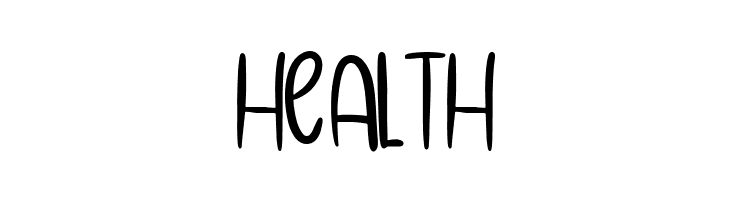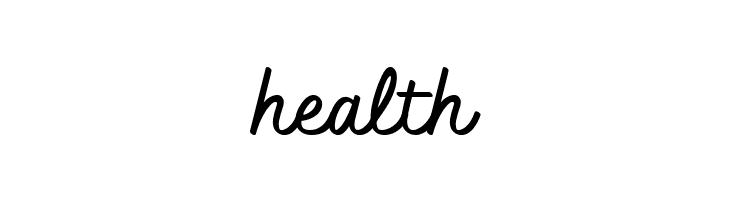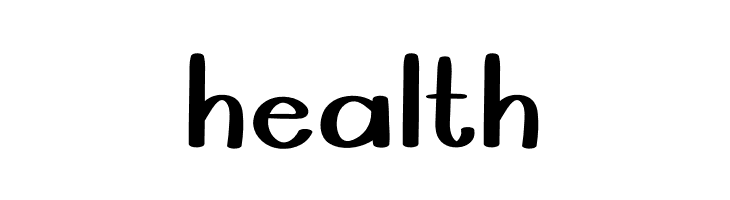
A bold, brush-style font with dynamic and expressive strokes.
A playful, cursive font with a handwritten, artistic style.
A playful, handwritten font with fluid, connected letterforms.
A playful, handwritten font with smooth, rounded edges and a whimsical style.
A lively, flowing script font with smooth, cursive strokes.
A dynamic and expressive script font with fluid, energetic strokes.
A bold, rounded font with a modern and friendly aesthetic.
A playful and elegant script font with a modern, handwritten style.
A playful, rounded font with a handwritten feel and consistent stroke thickness.
A dynamic, brush-style font with energetic and expressive letterforms.